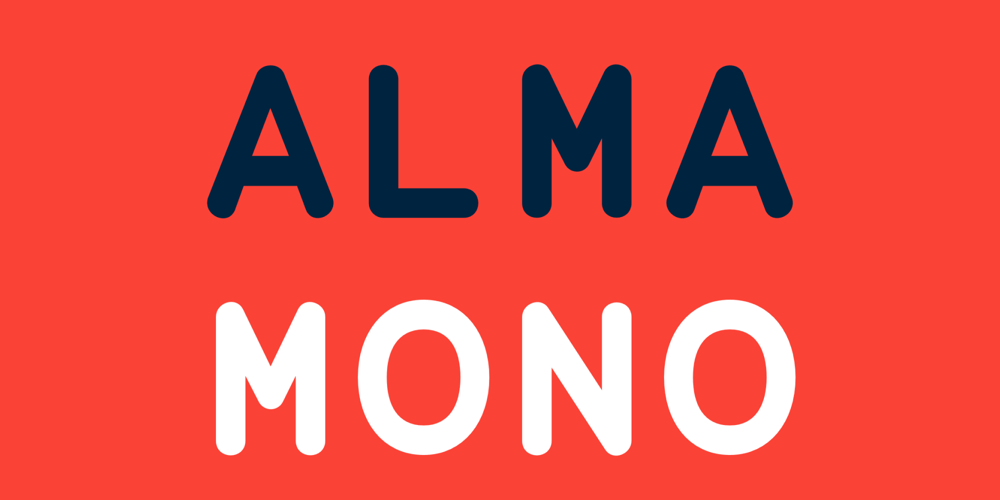
Alma Mono Font Family was designed by Daniel Feldt and published by Great Scott. Alma Mono contains 5 styles and family package options. Alma Mono is a monospace typeface with a friendly personality. It comes in five weights and its rounded ends convey a more friendly atmosphere then a more mechanical monospace.